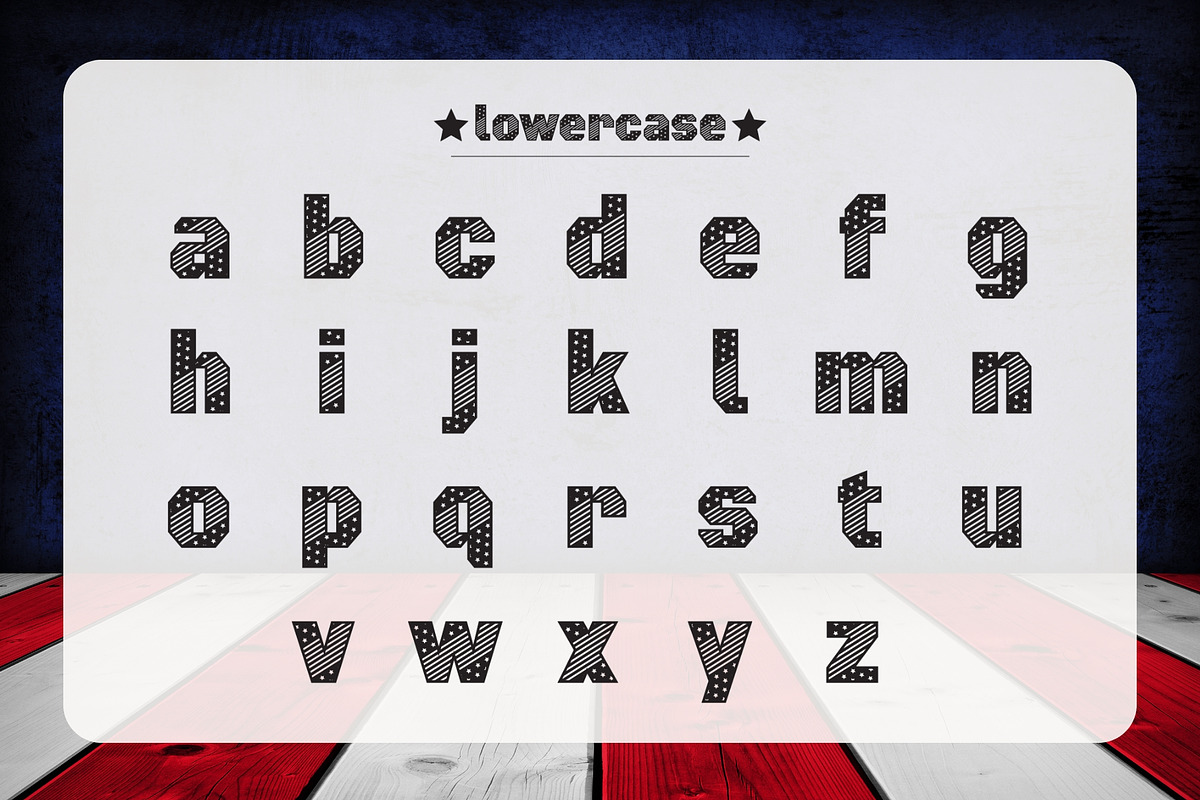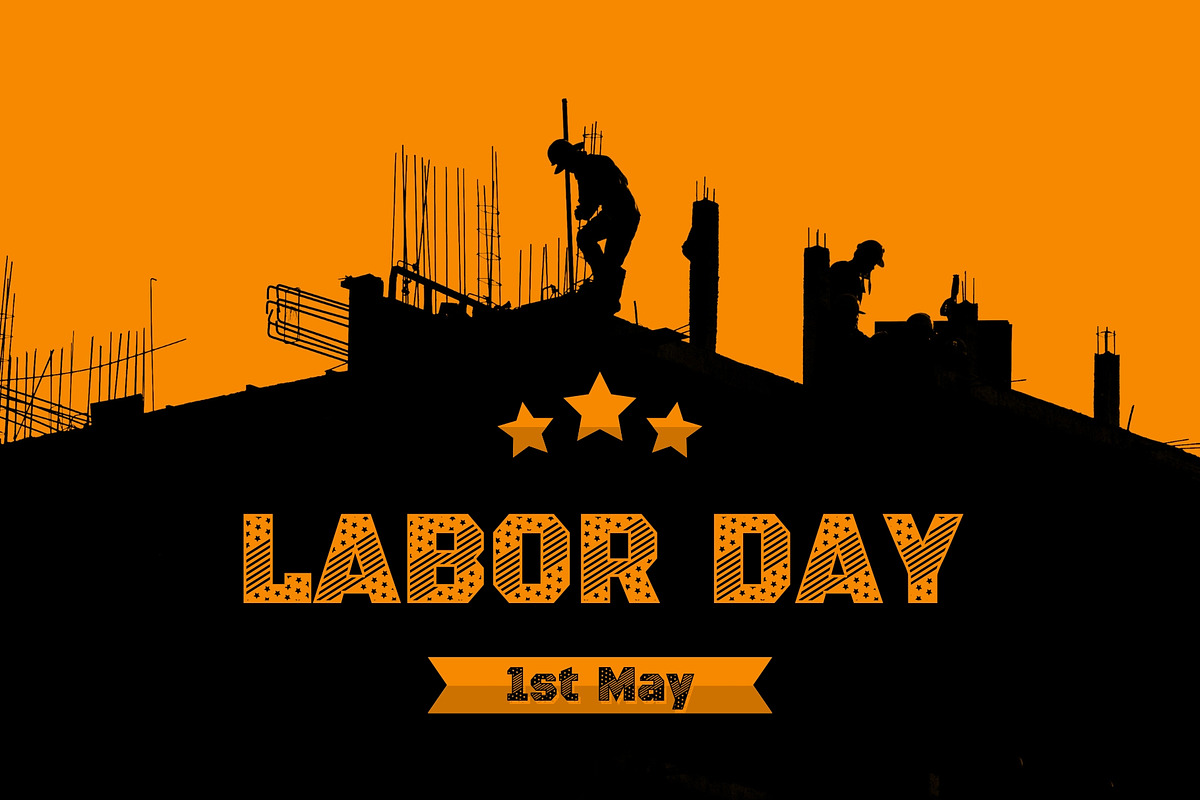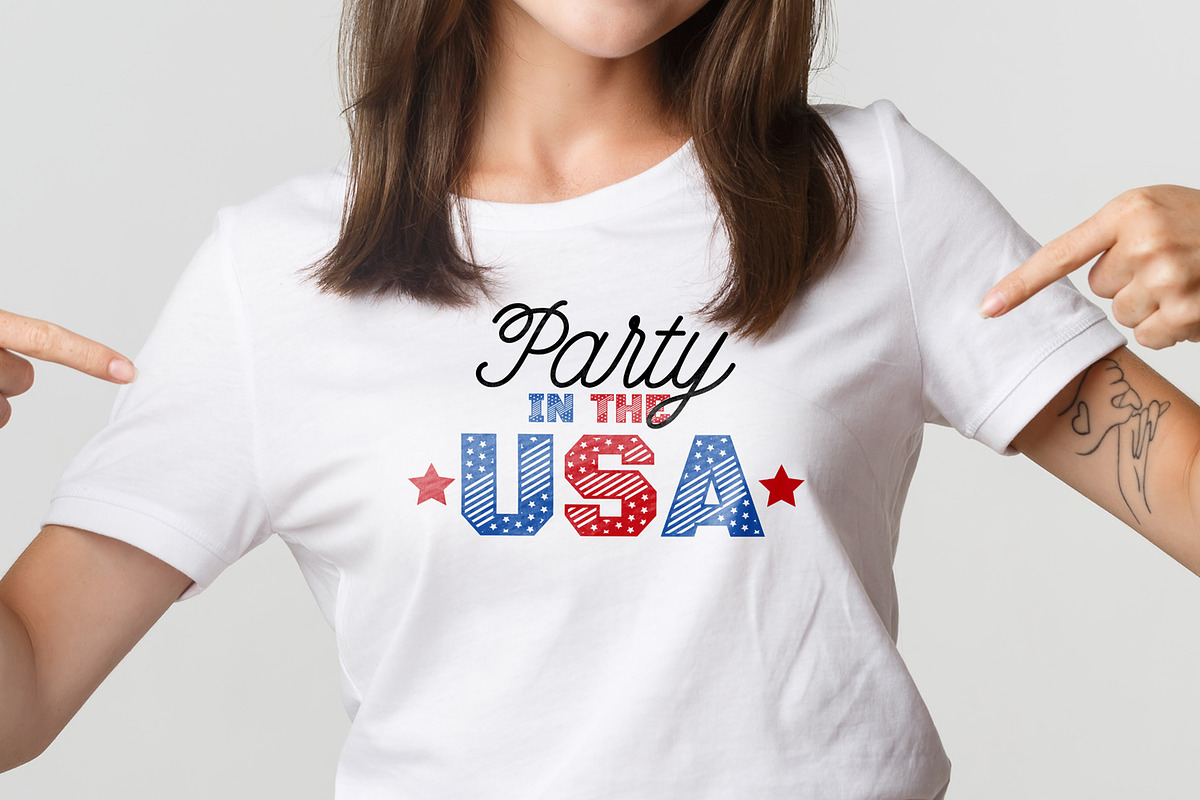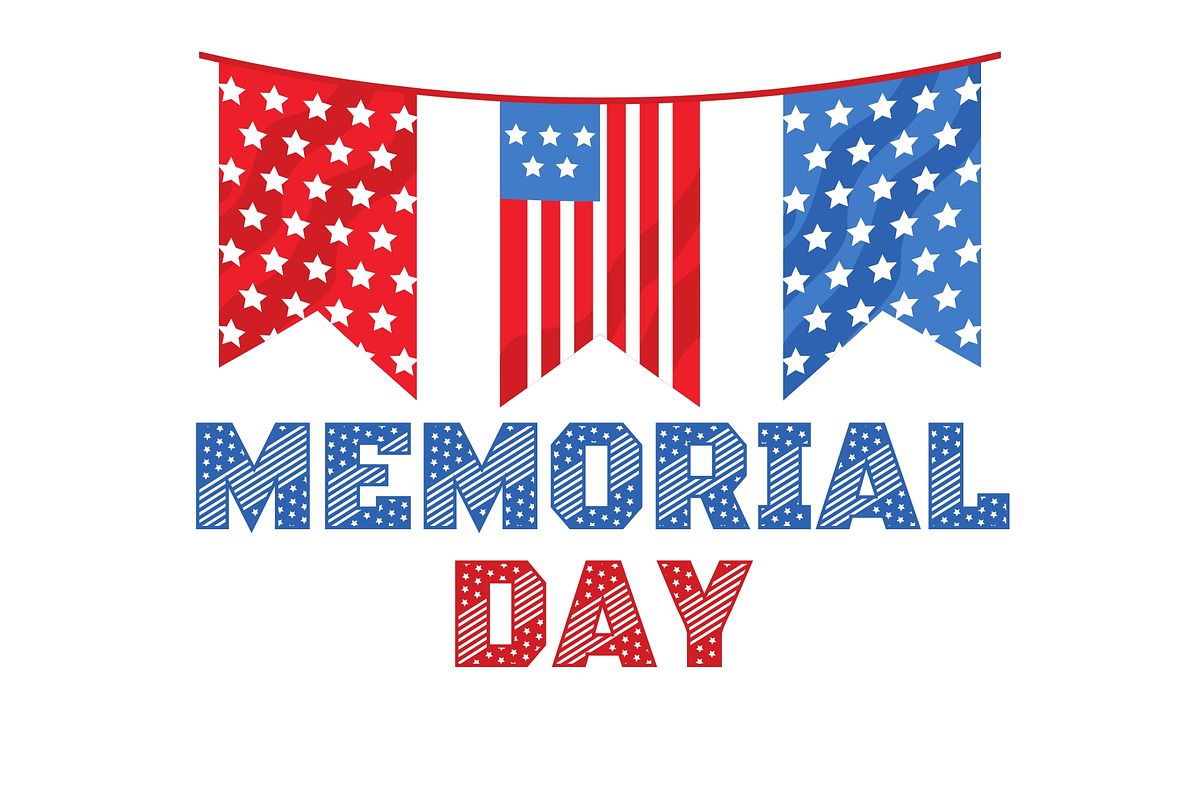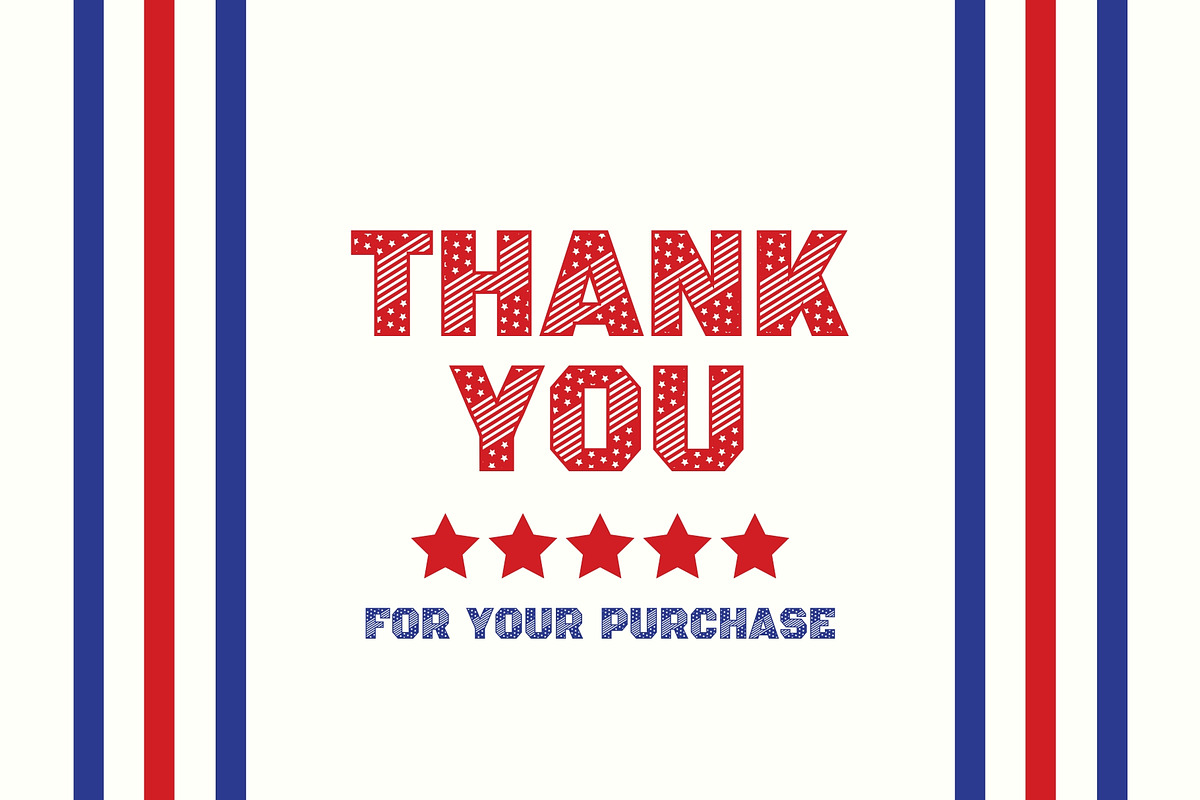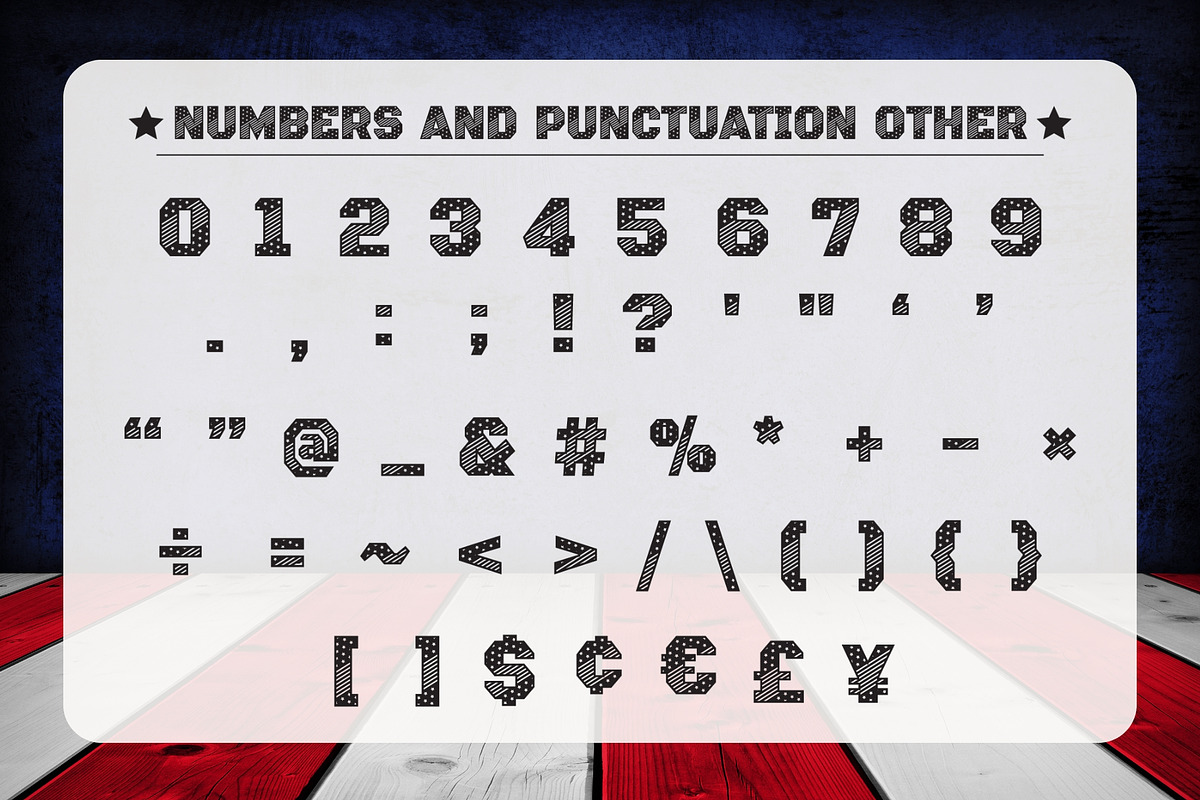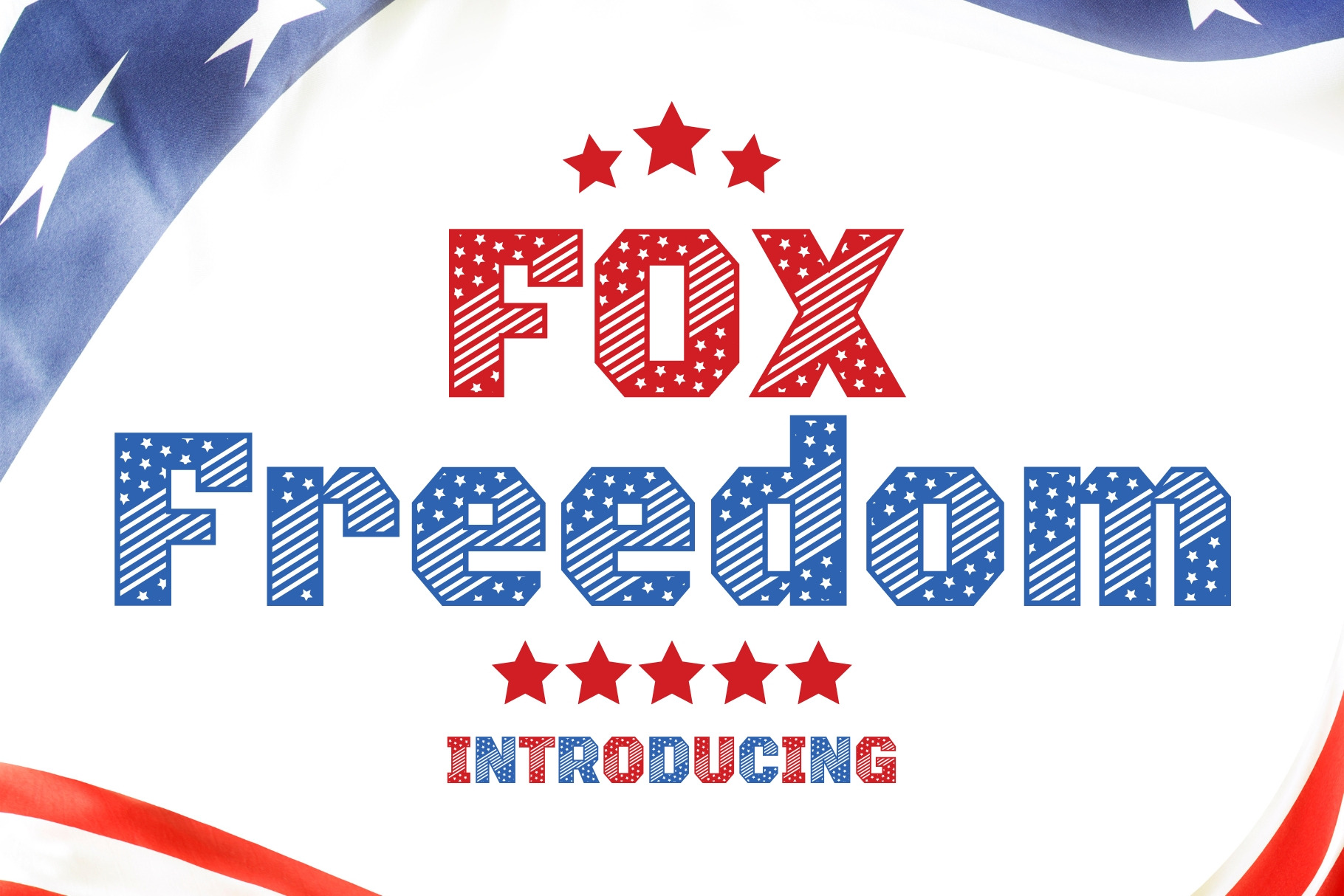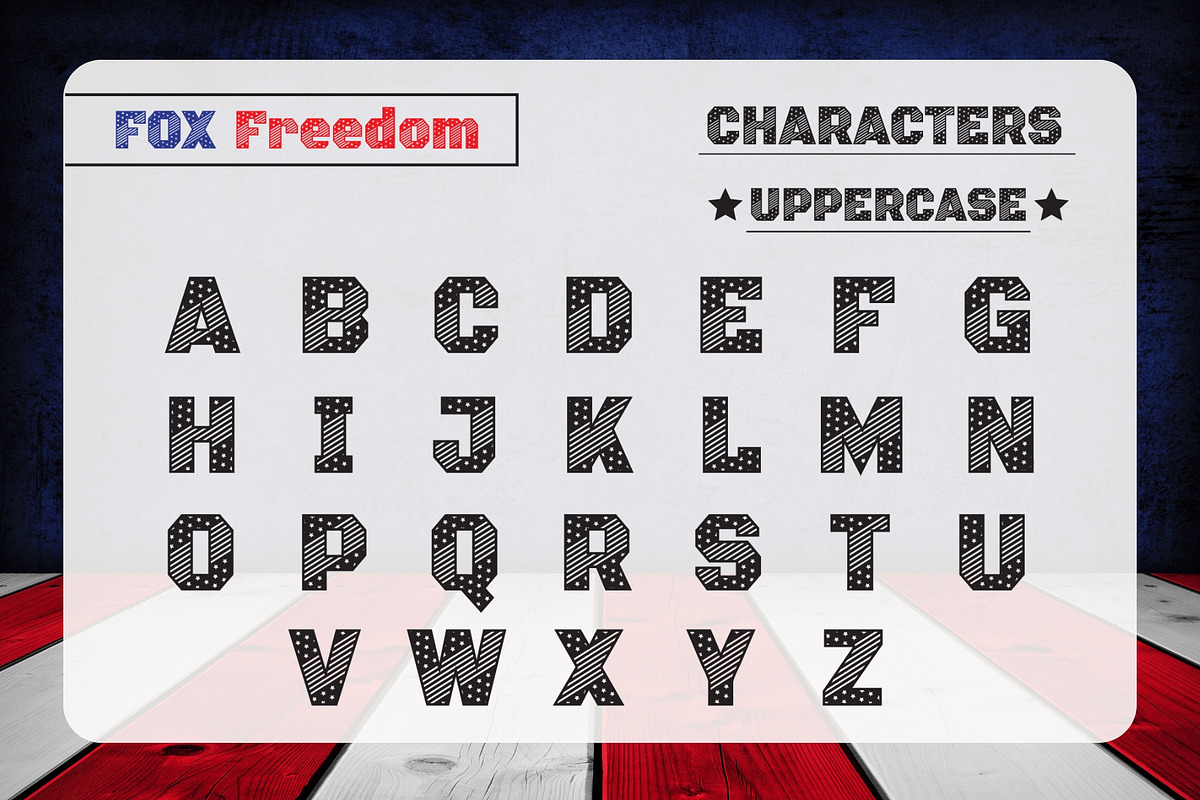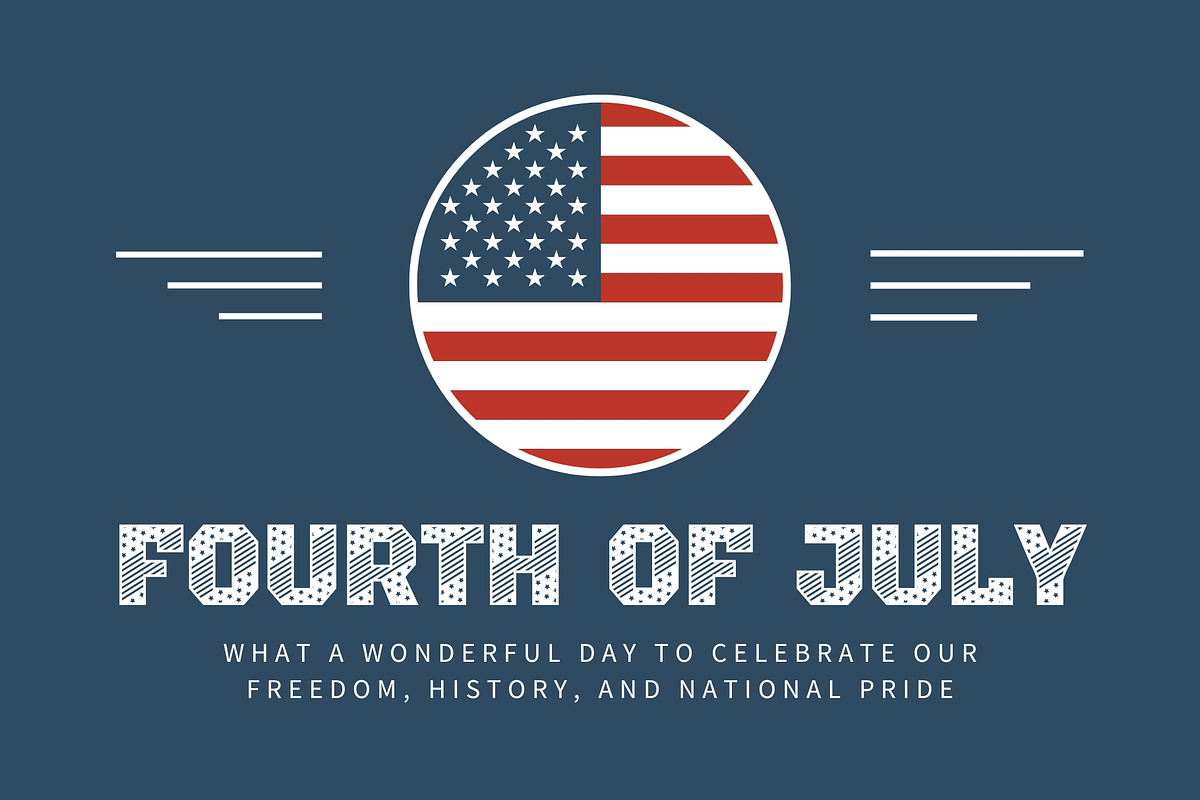
Fox Freedom Font
Fox Freedom is a font that has a stars and stripes pattern in the letters. This decorative font is perfect for projects that celebrate American culture, history, or events such as Independence Day, Veterans Day, or Memorial Day. It can be used to create impactful headlines, banners, or signage, infusing a sense of national pride and identity into any design.